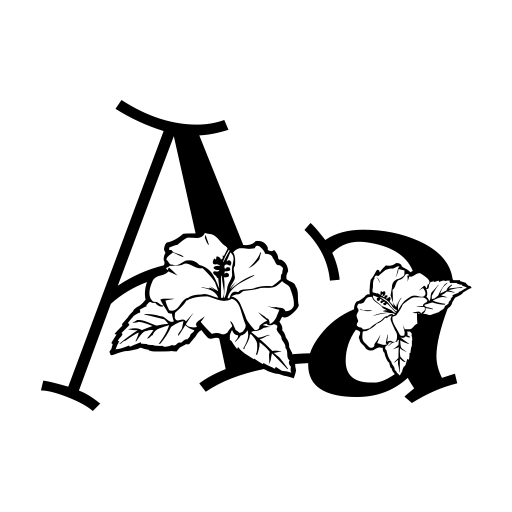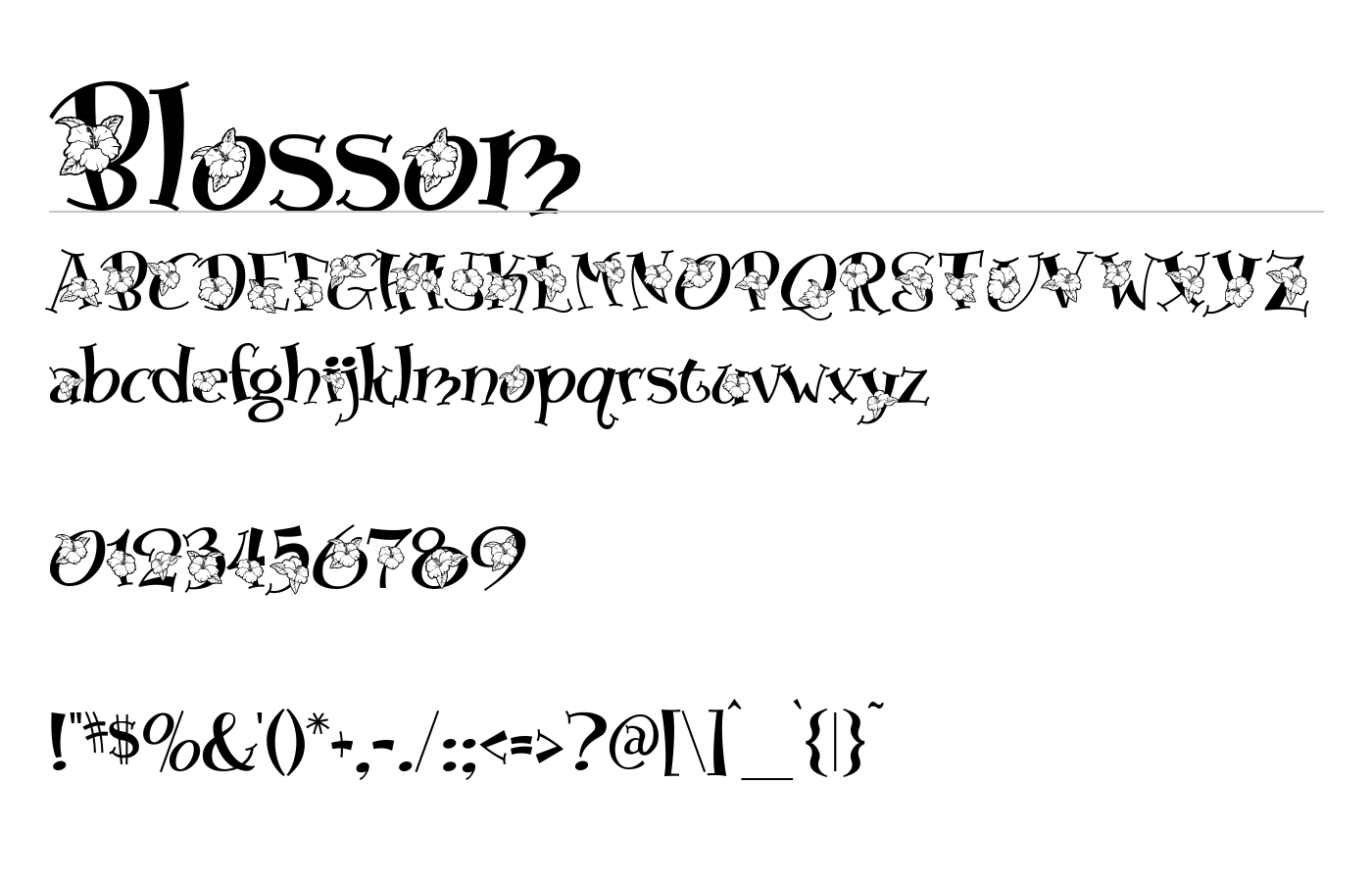
Blossom Font is a decorative serif typeface characterized by its elegant, high-contrast strokes and intricate floral embellishments integrated into the letterforms, giving it a whimsical and artistic feel. This font is best suited for creative projects such as invitations, branding for floral or boutique businesses, and eye-catching headlines where a unique, nature-inspired aesthetic is desired. Its ornate style makes it less ideal for body text but perfect for adding a touch of sophisticated charm and personality to special design works.
Blossom Font
About Blossom Font